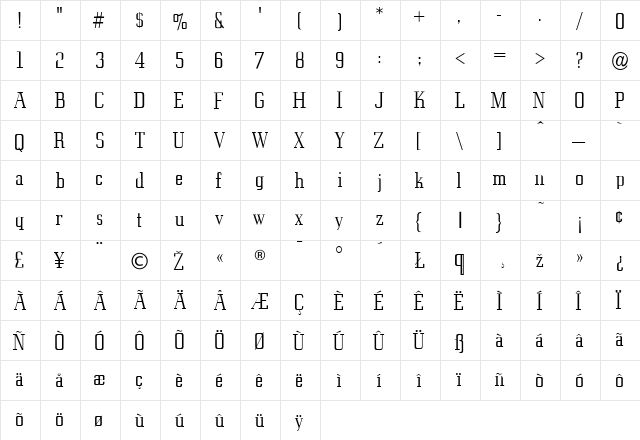
EdenLight Regular
Design Context for EdenLight Typeface
EdenLight is a composed and adaptable typeface that performs quietly and consistently across a wide range of design contexts. Its slender proportions lend an understated elegance to any composition.